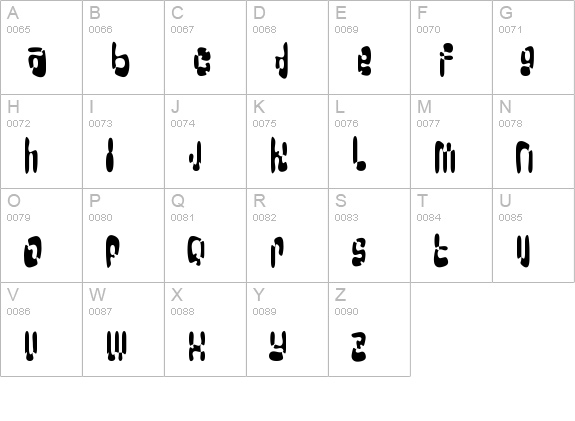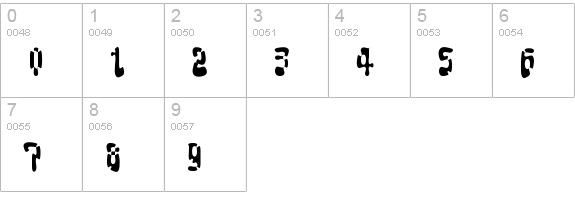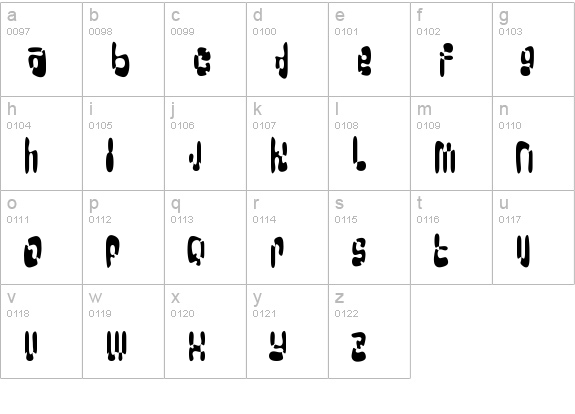
Big Loada Splatter Font Details
Introducing the Big Loada Splatter font - a bold and dynamic typeface that exudes energy and creativity. This one-of-a-kind font is perfect for making a statement with your designs, whether it be for posters, logos, or social media graphics. The unique splatter effect adds a touch of edginess and modernity to any project. What's even better is that the Big Loada Splatter font is available for free download at FontsMarket.com. You can easily add this eye-catching font to your collection without any cost. Don't miss out on the opportunity to enhance your designs with this striking and versatile typeface. Download the Big Loada Splatter font today and let your creativity run wild!